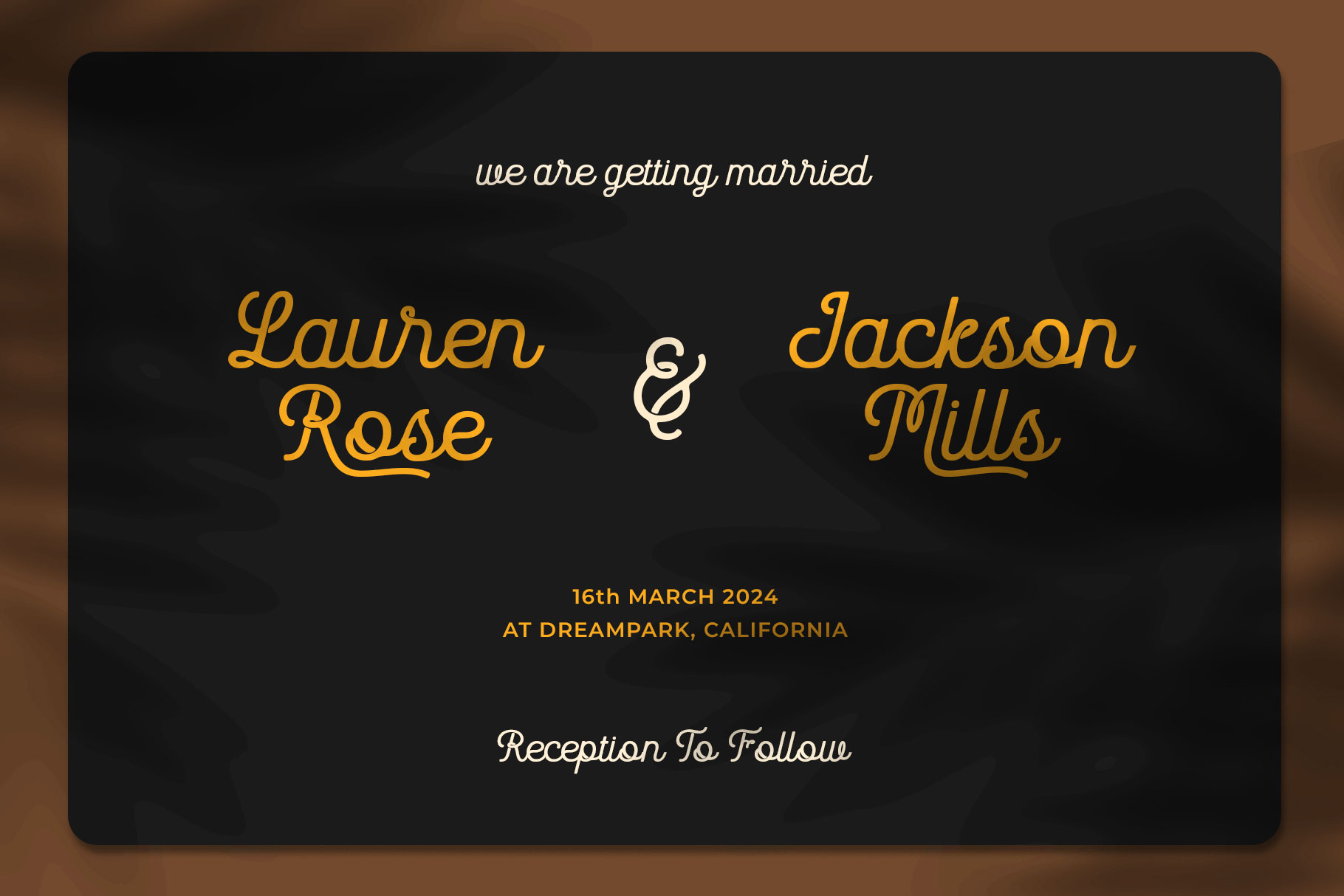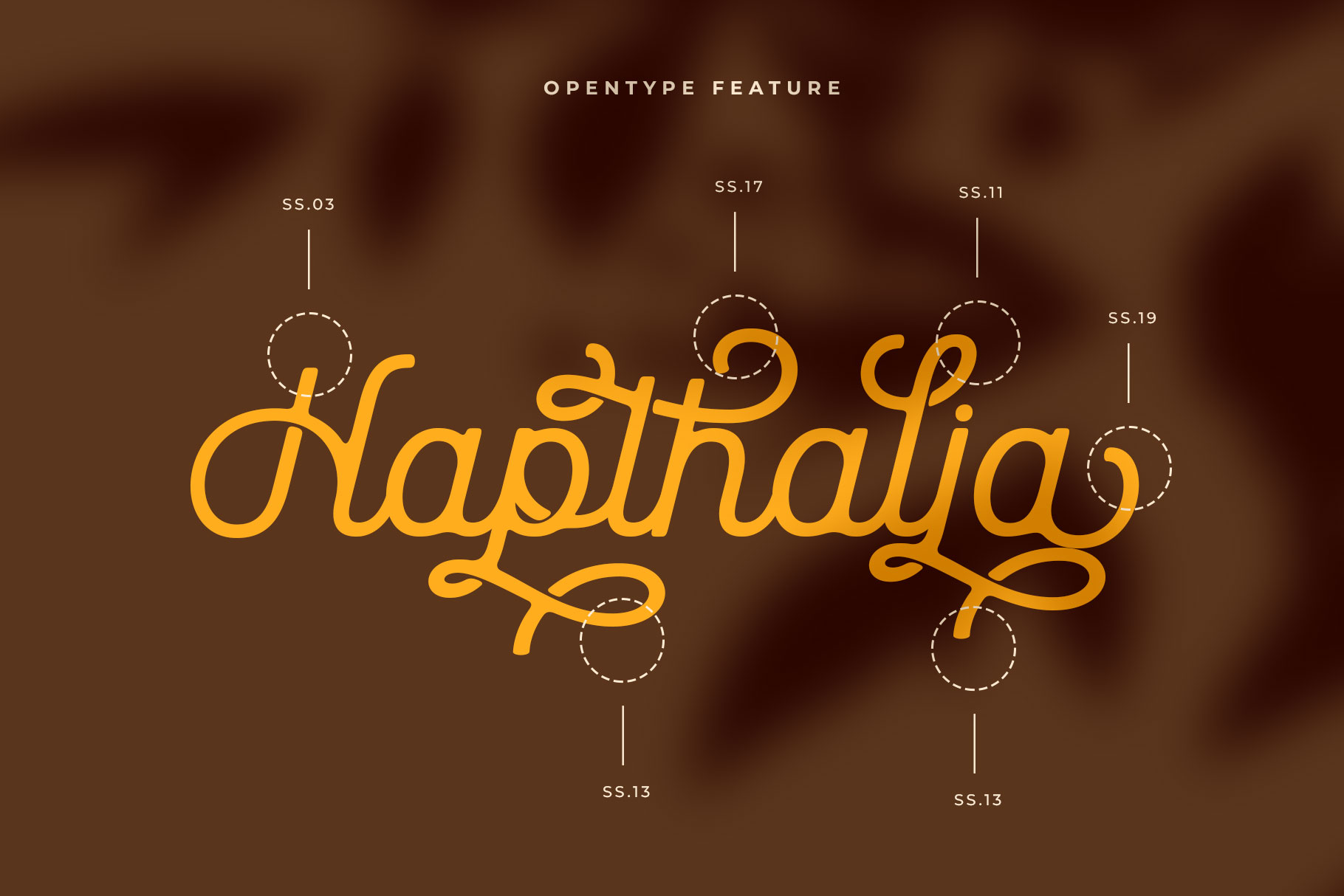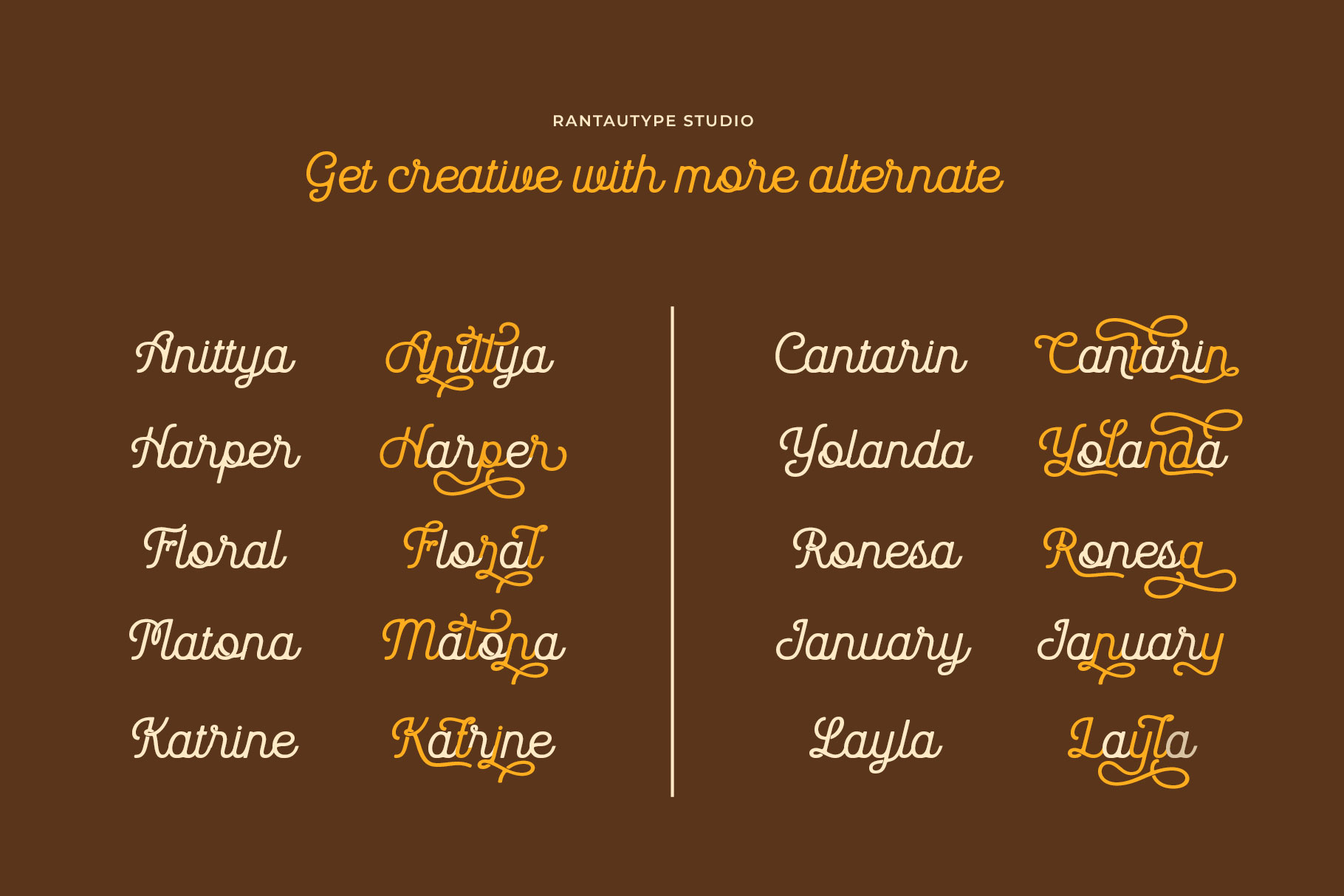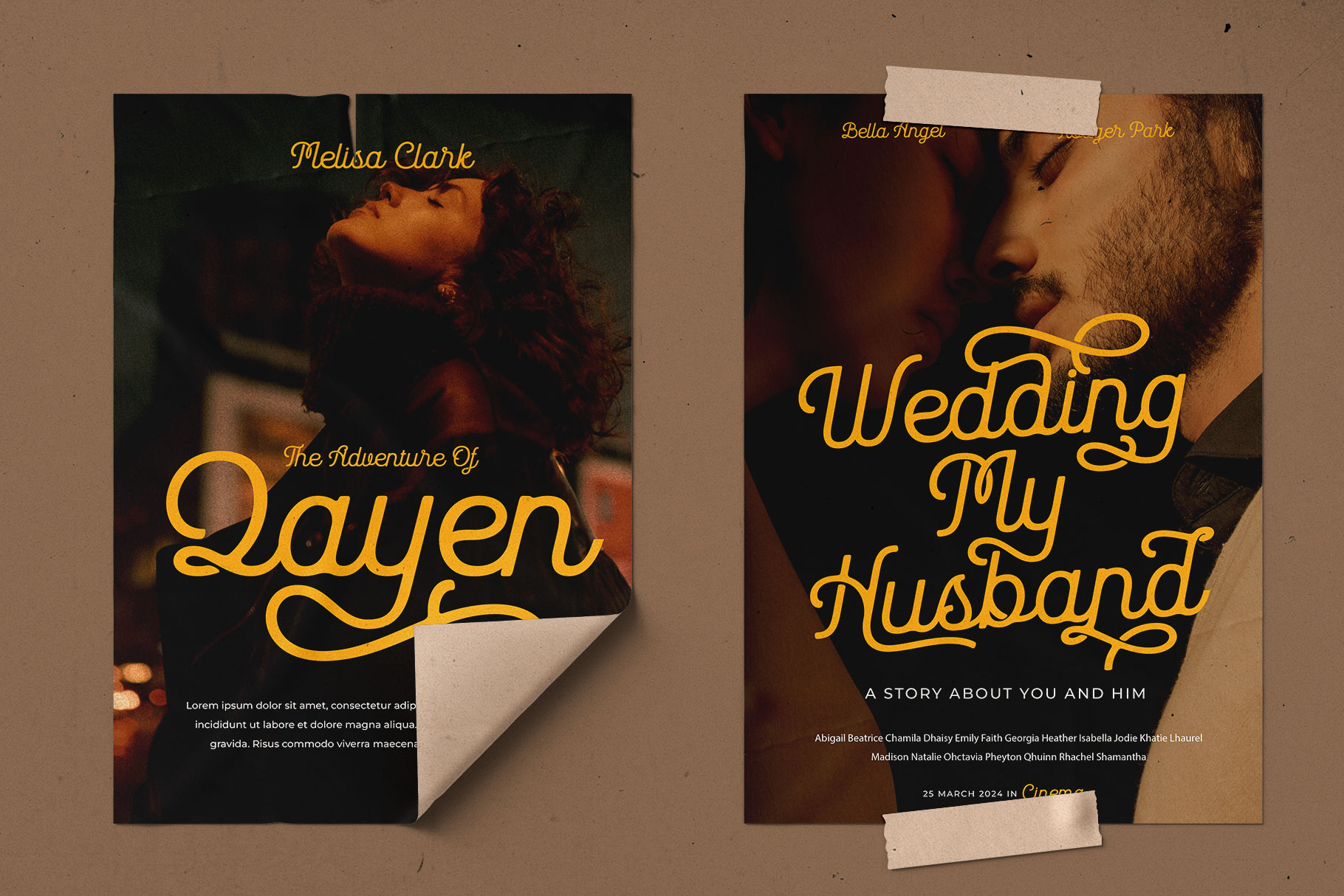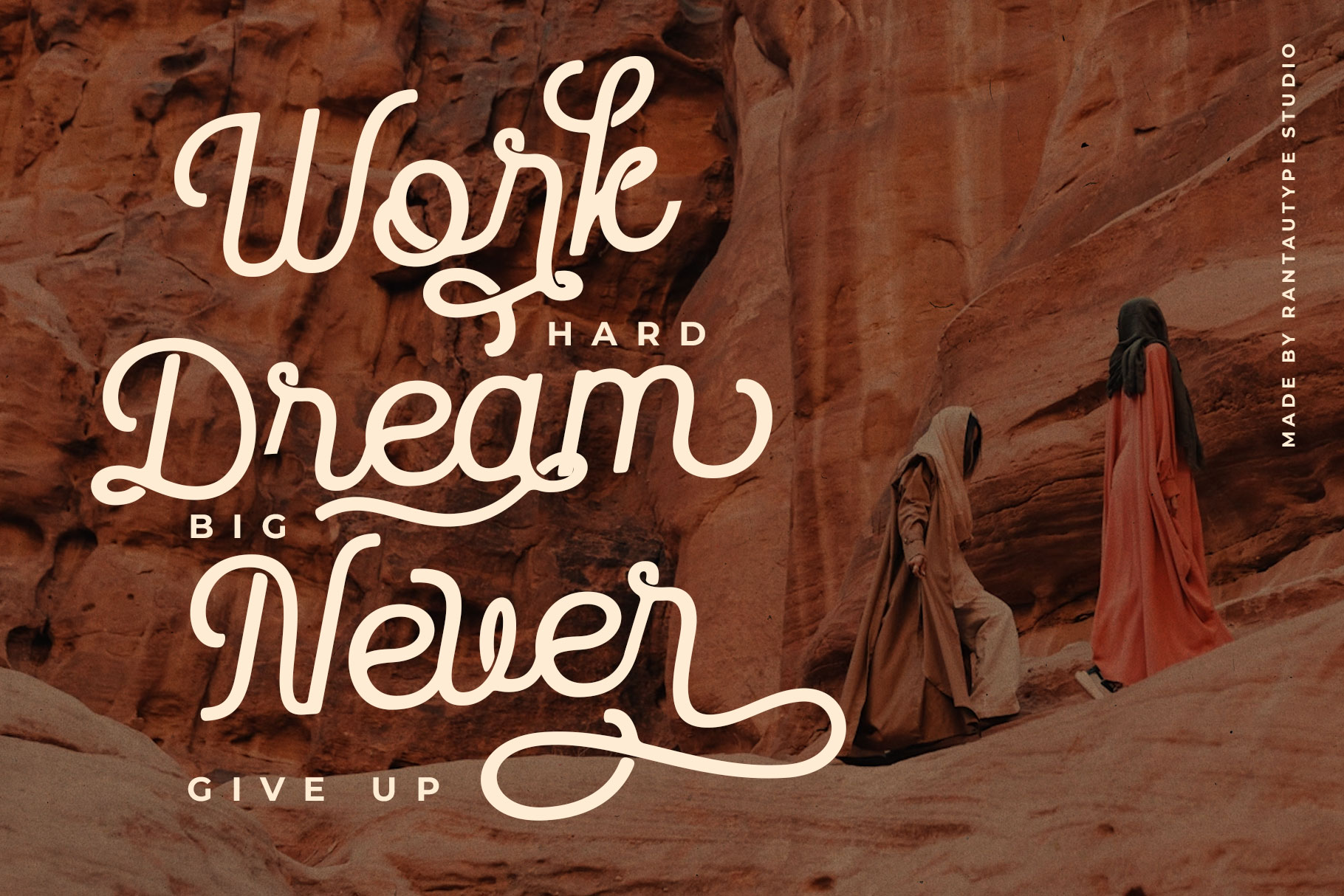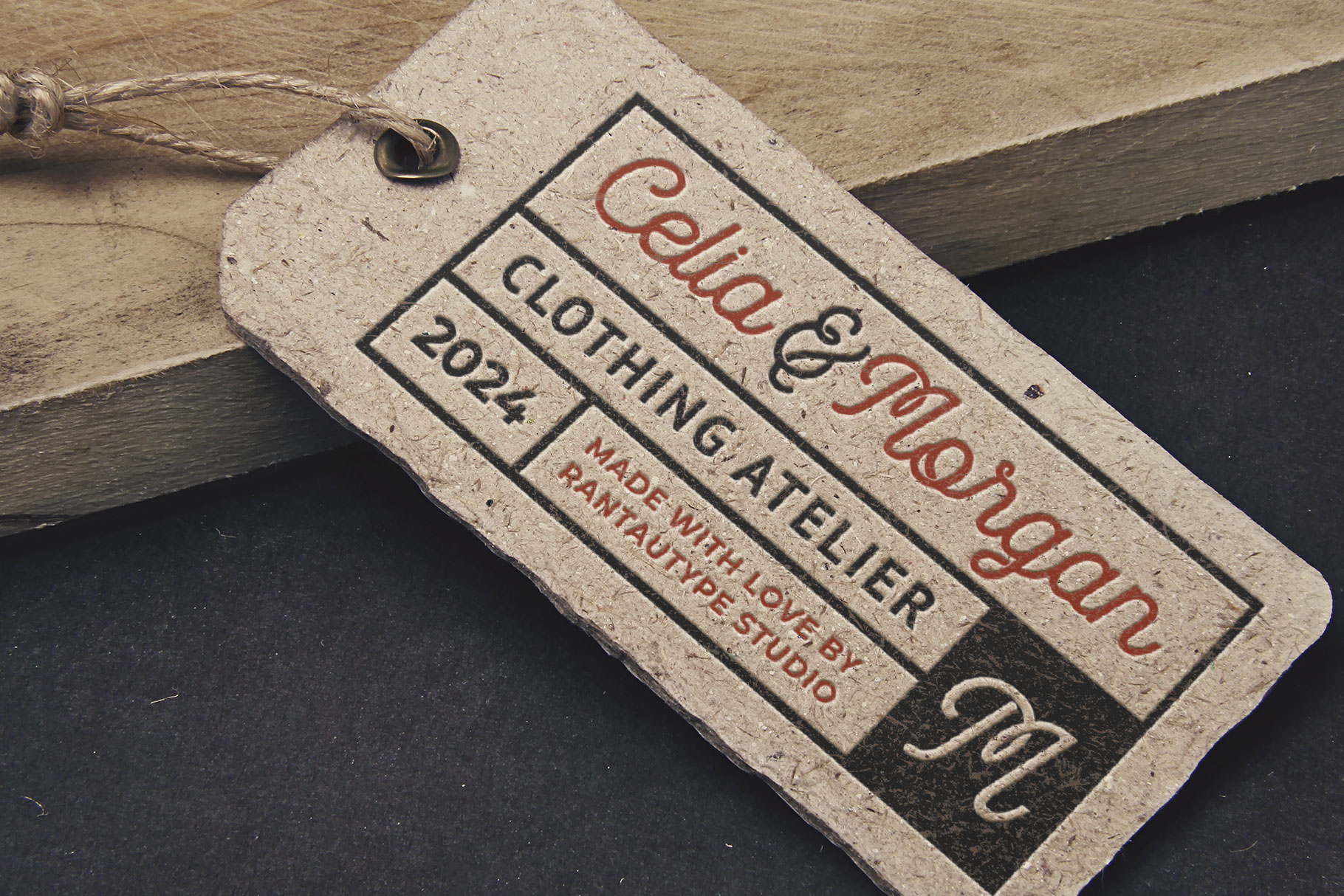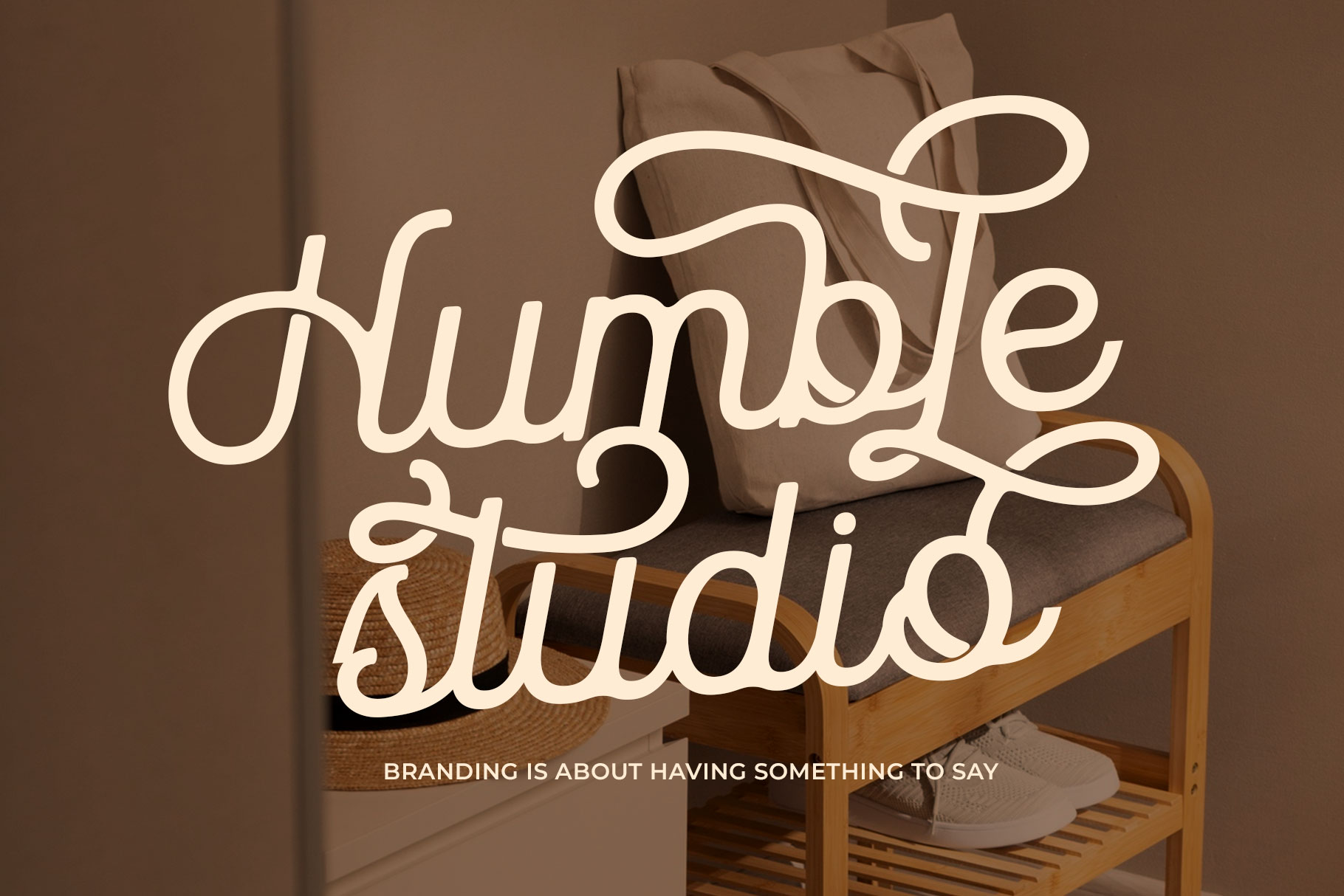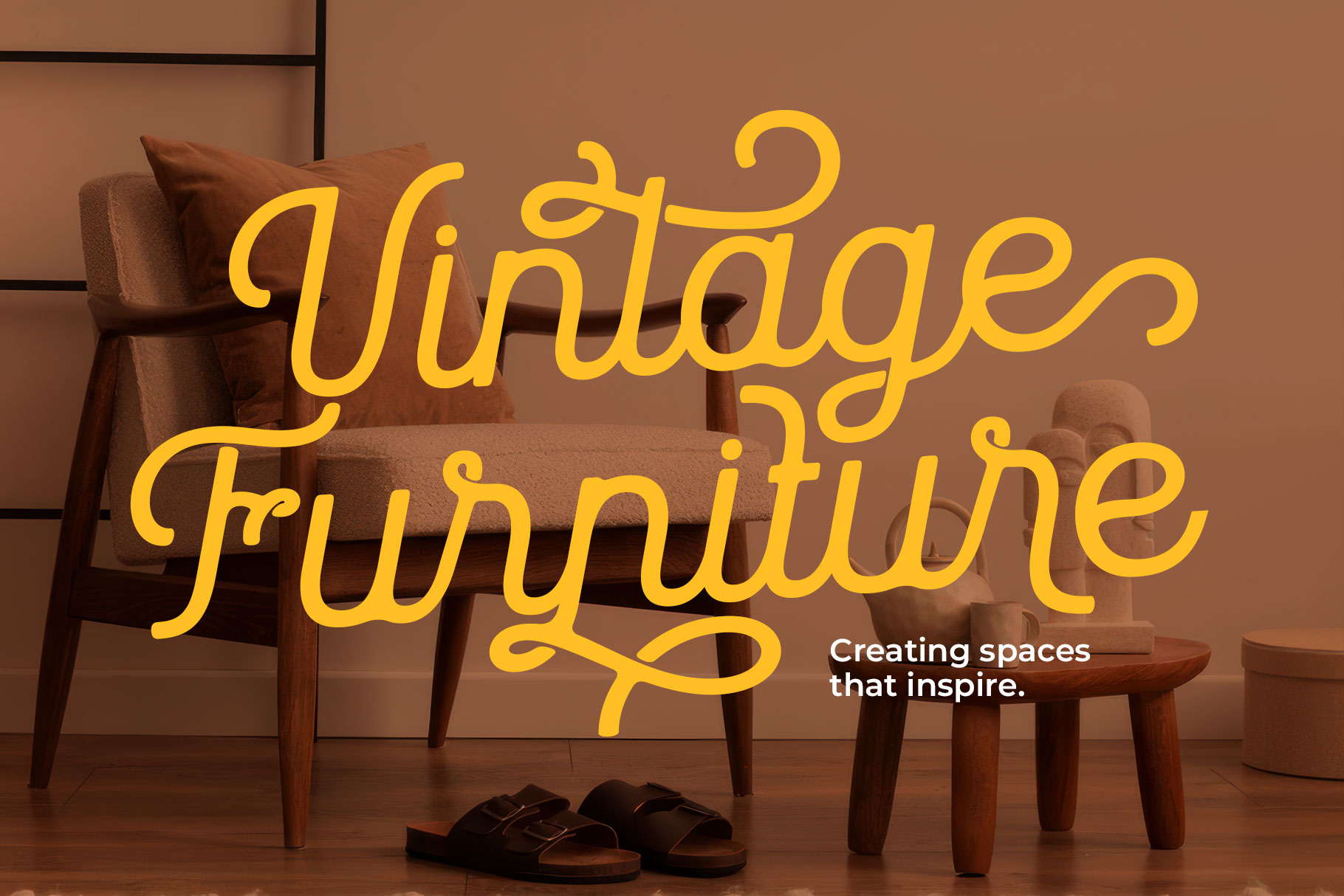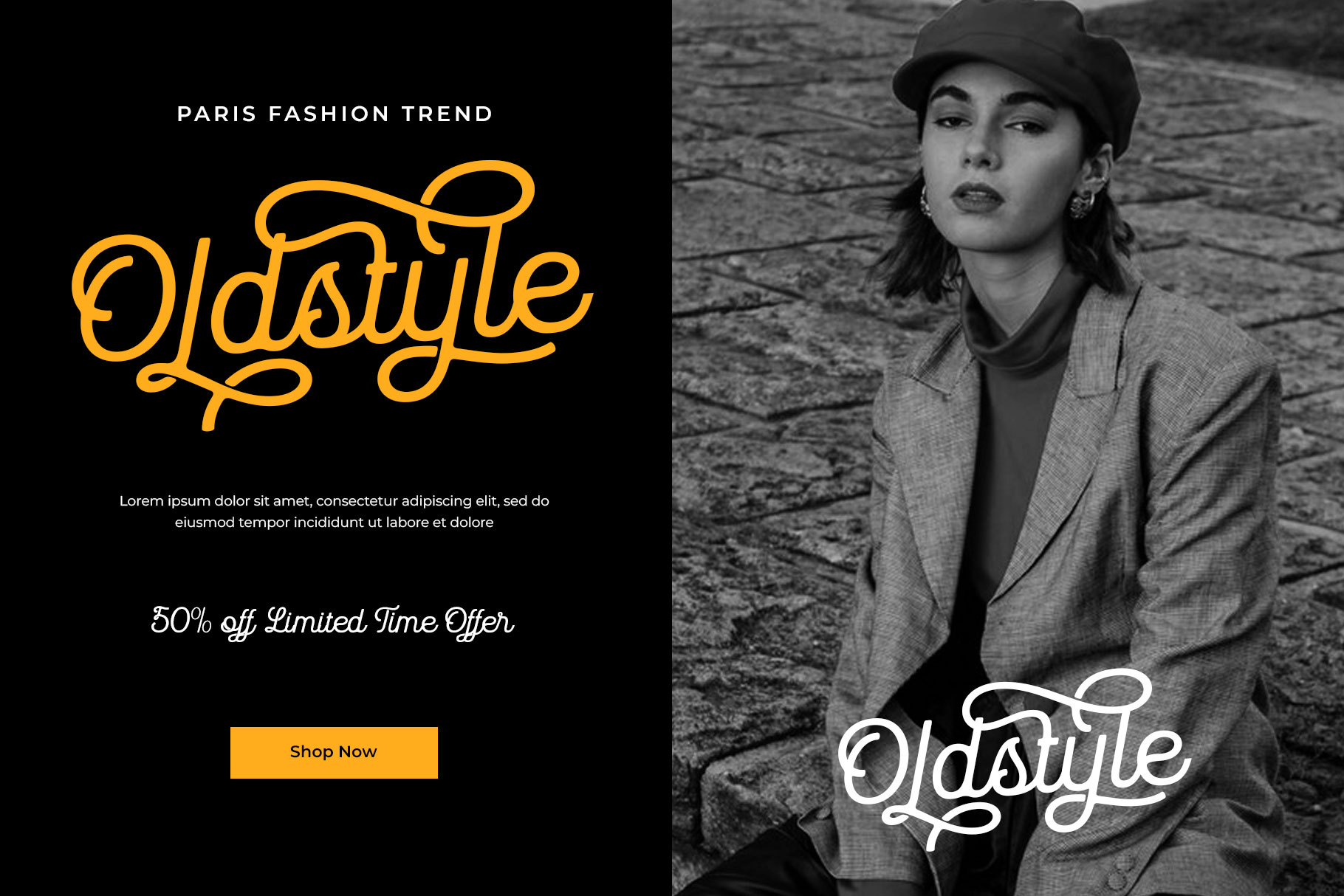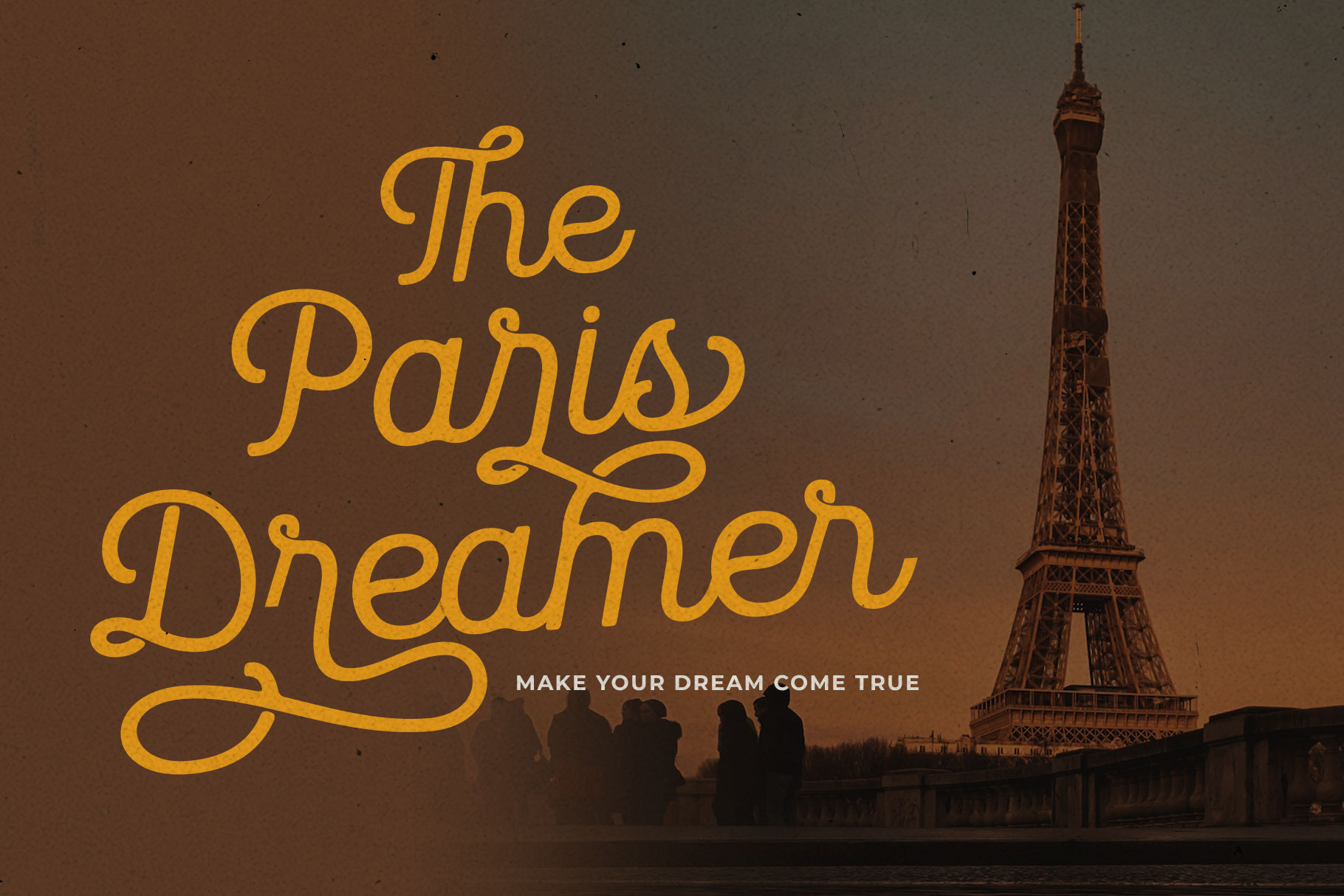
Arthegis Script Monoline Font
Arthegis is a handcrafted script monoline font created with love, inspired by vintage signage it looks modern, soft, retro and sophisticated.  Come with  165+ beautiful alternate and ligature you can mix to create a more stunning display.
Arthegis is a perfectly choice for any creative endeavor, creating vintage, modern, retro, lifestyle design such as logos, title, cover, branding, business project, corporate project, display, poster, wedding, magazine, business card, packaging product,  and more project with vintage taste.
• 165+ Beautiful Alternate and Ligature